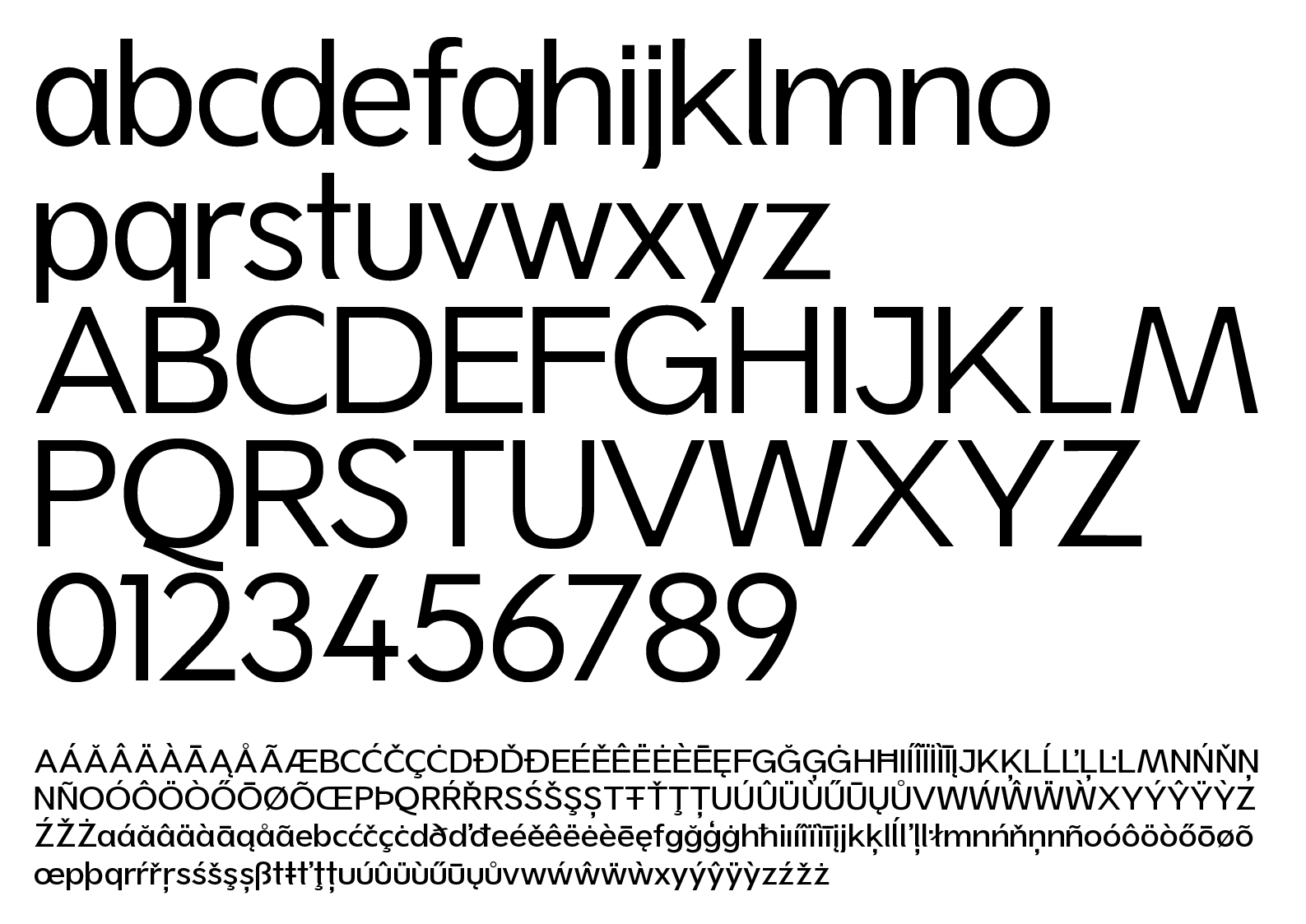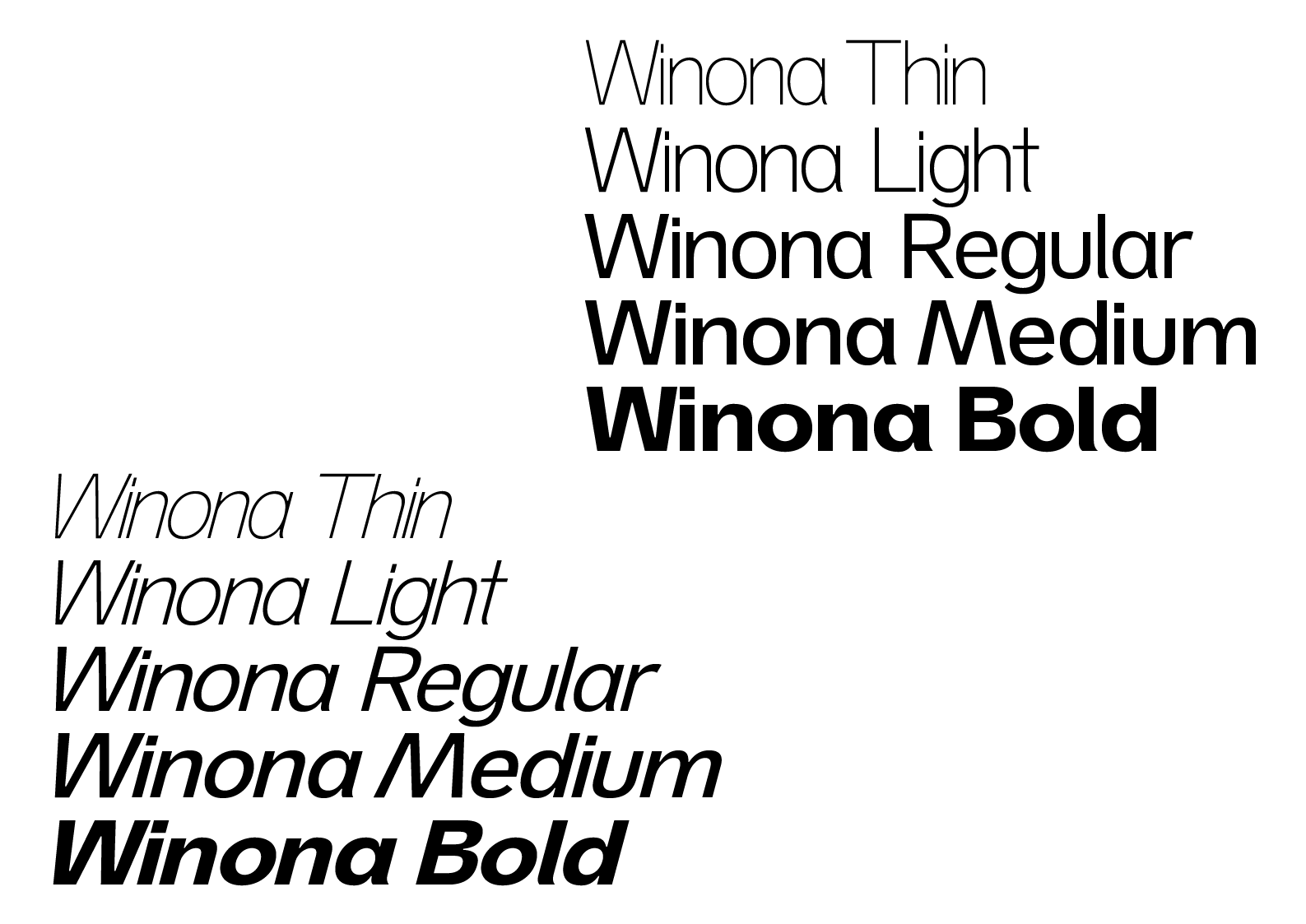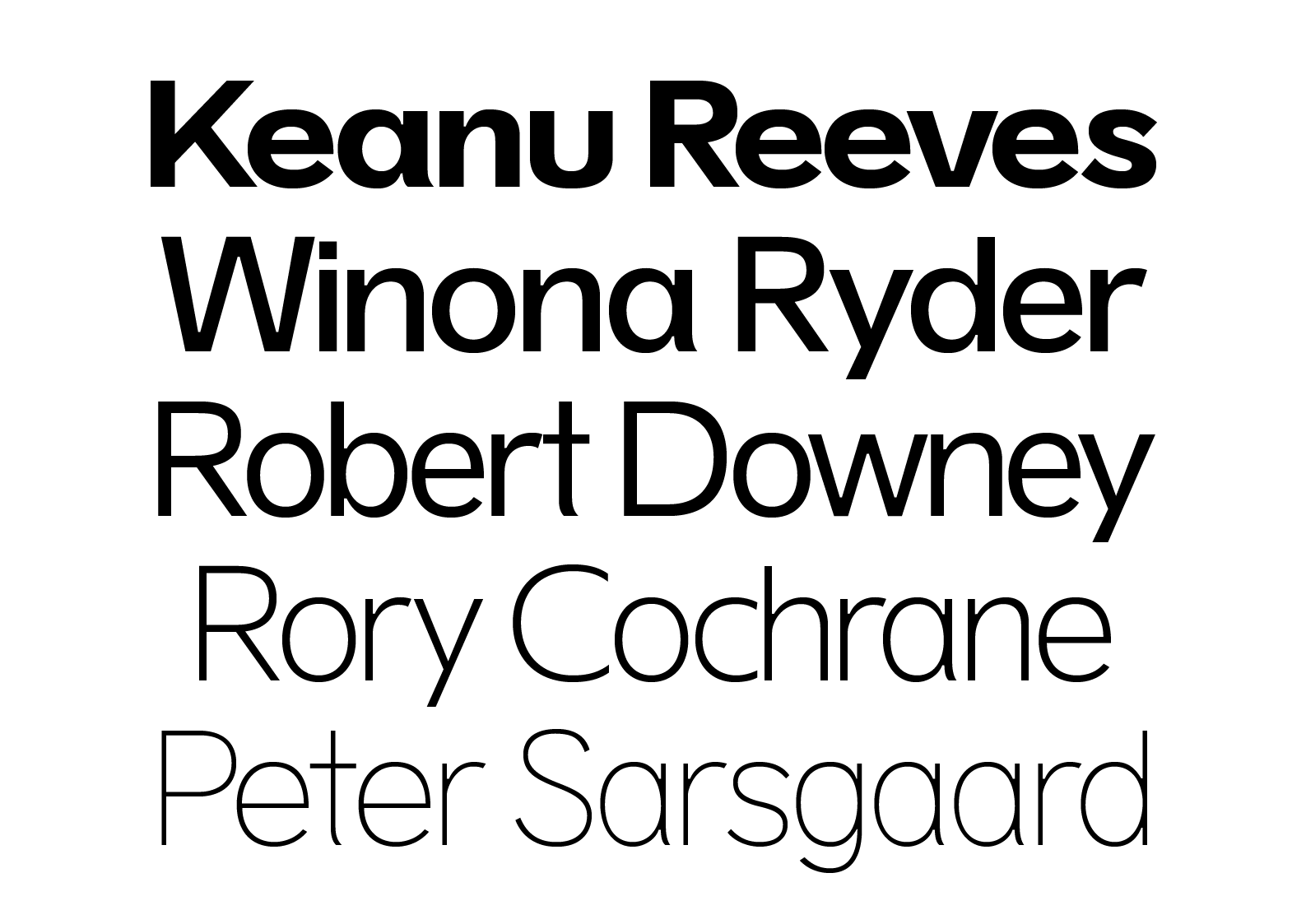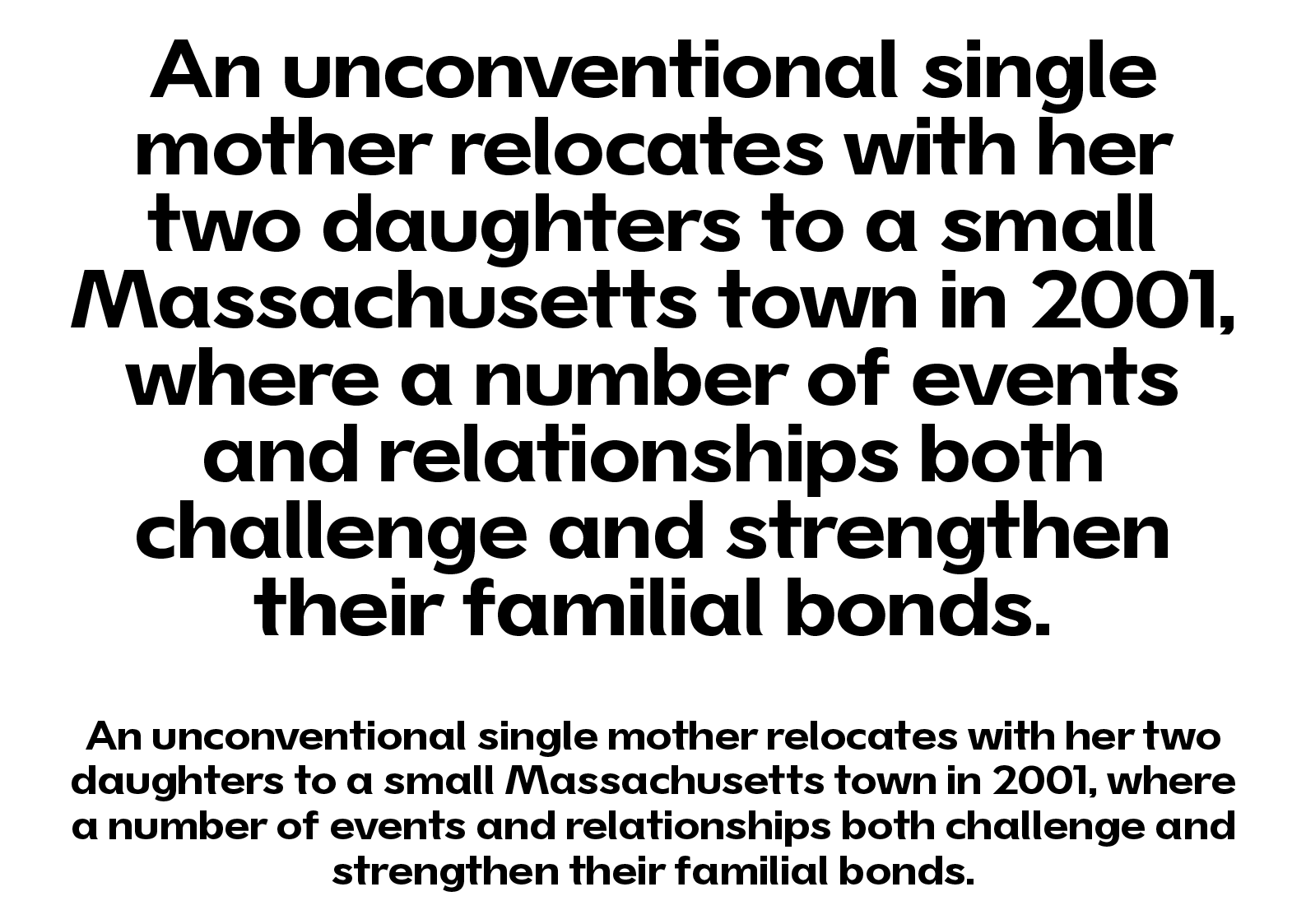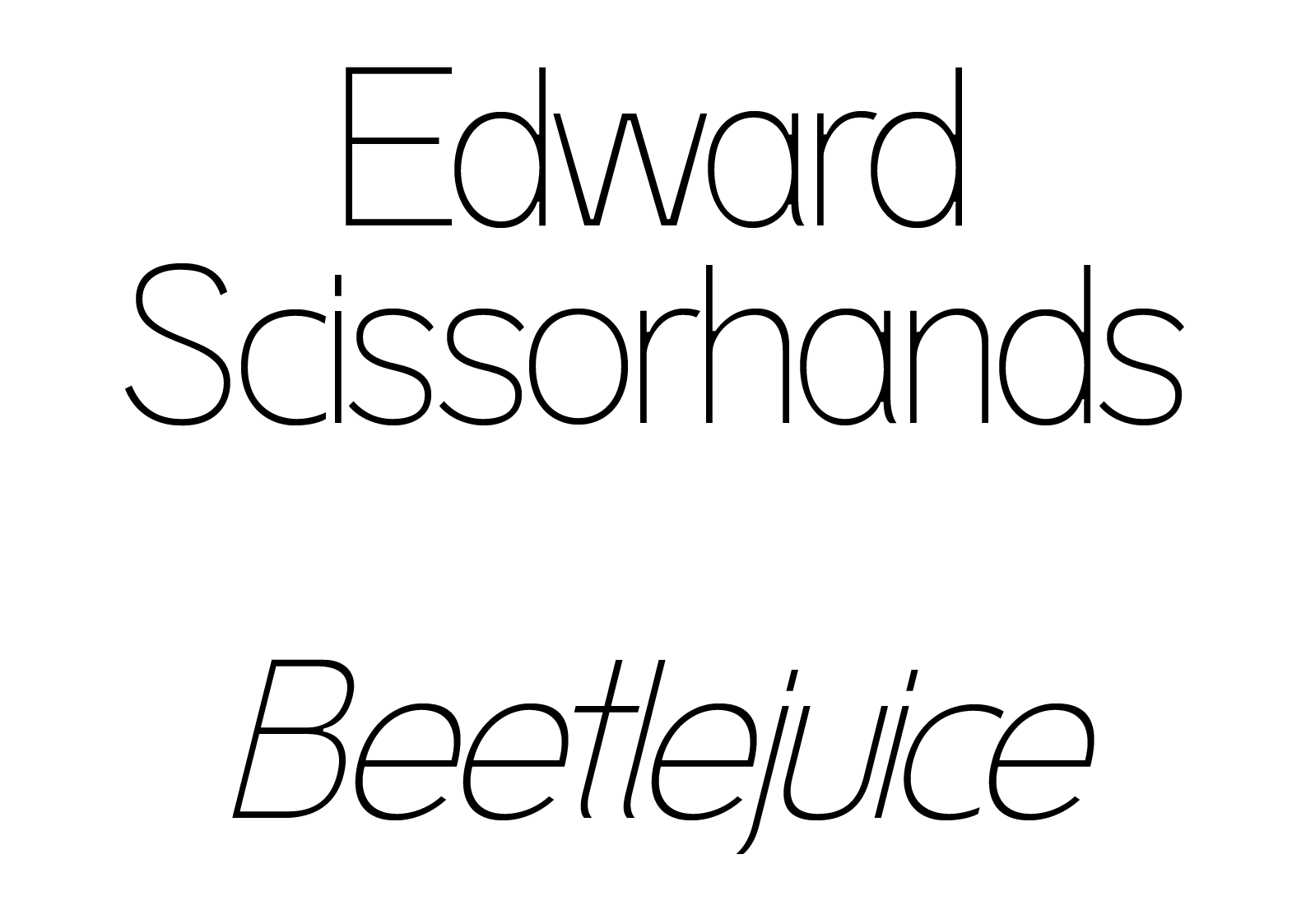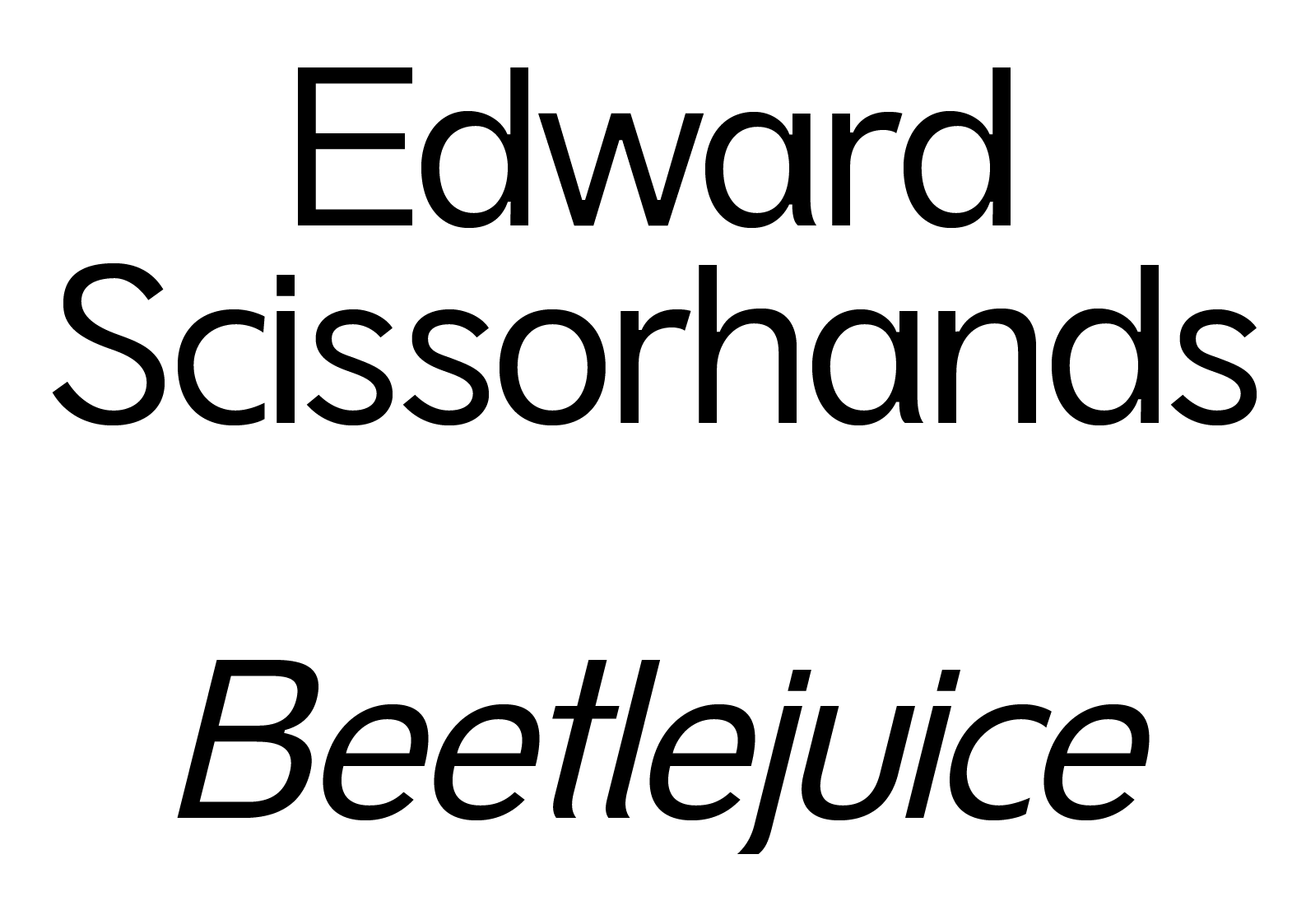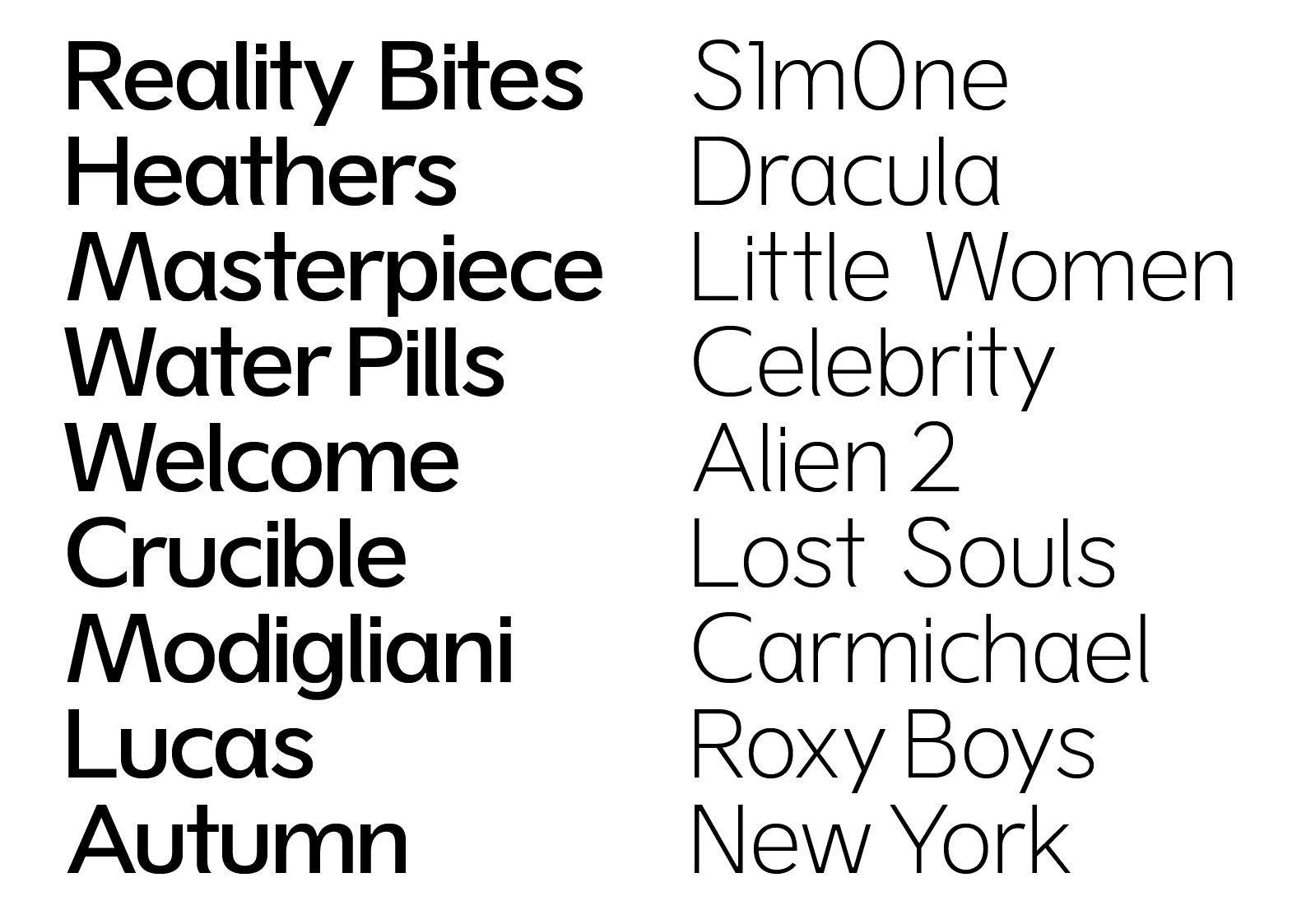
Winona
Useful things have personalities too. The mug you always reach for. The jacket that somehow gets better after ten years. The pen everyone steals from your desk. They aren't necessarily the most remarkable objects you own. You just keep choosing them. Winona was made with the same ambition. It's a workhorse with five weights and matching italics plus the alternates and details you need to keep using it in different ways. Contrast between thick and thin strokes gives it a voice without getting in the way. Use it once and it feels easy. The hope is that you keep reaching for it.
Sans Serif
trulytype
Winona Sans specimen